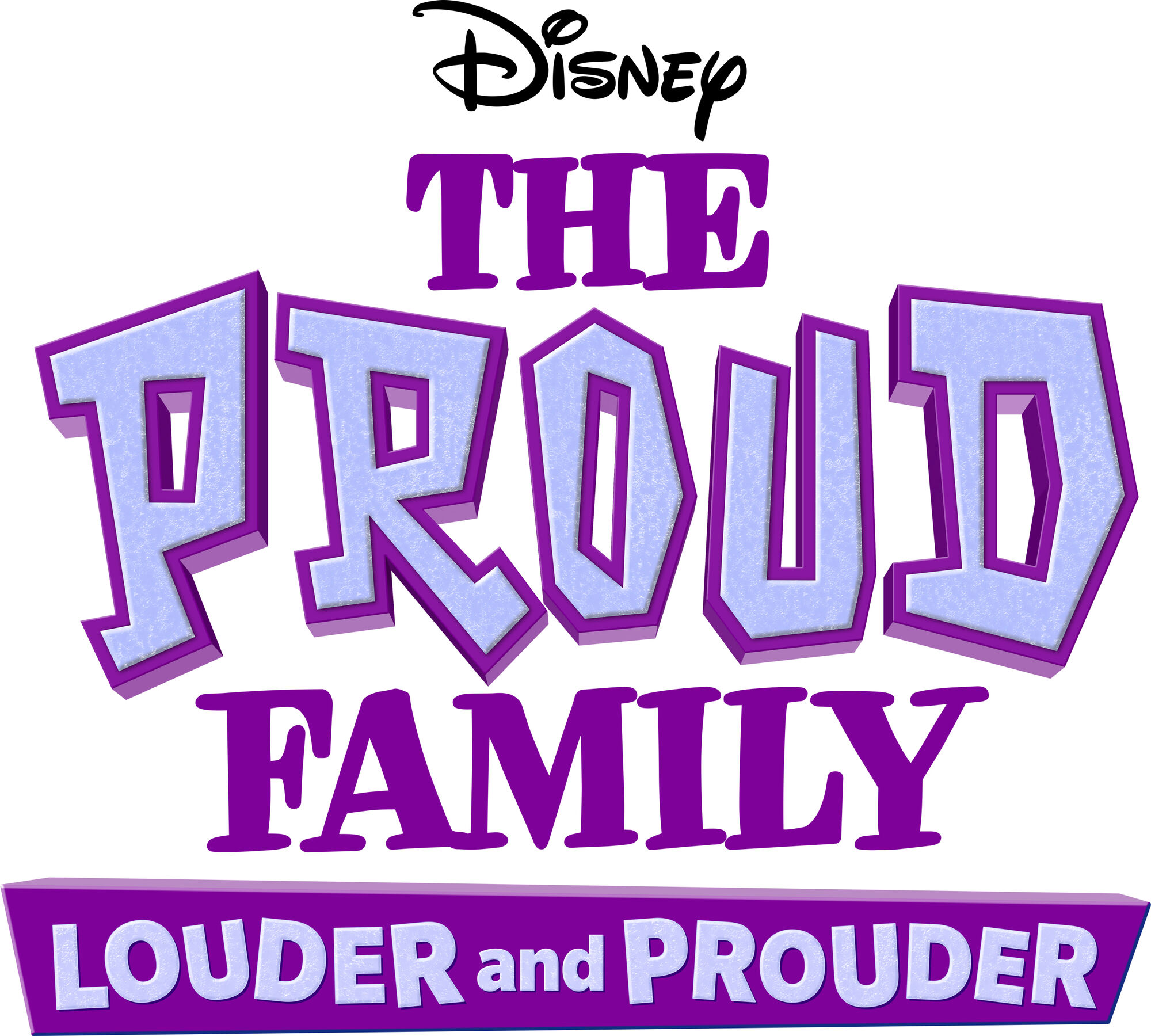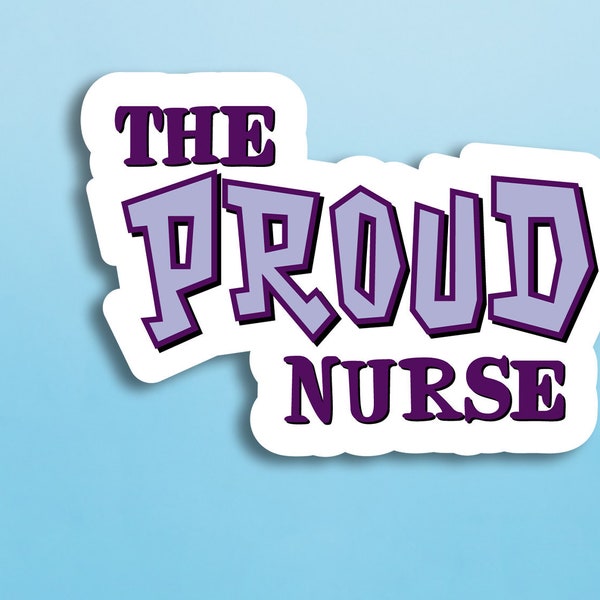
Proud Family Font
Proud Family Font - In logo design, the proud family font can transform a simple logo into a statement piece. Its boldness and distinctiveness help brands. The time is now 04:19. “the” and “family” are close to filmotype pixie.
Its boldness and distinctiveness help brands. The time is now 04:19. In logo design, the proud family font can transform a simple logo into a statement piece. “the” and “family” are close to filmotype pixie.
Its boldness and distinctiveness help brands. In logo design, the proud family font can transform a simple logo into a statement piece. “the” and “family” are close to filmotype pixie. The time is now 04:19.
The time is now 04:19. In logo design, the proud family font can transform a simple logo into a statement piece. “the” and “family” are close to filmotype pixie. Its boldness and distinctiveness help brands.
The time is now 04:19. Its boldness and distinctiveness help brands. In logo design, the proud family font can transform a simple logo into a statement piece. “the” and “family” are close to filmotype pixie.
In logo design, the proud family font can transform a simple logo into a statement piece. The time is now 04:19. “the” and “family” are close to filmotype pixie. Its boldness and distinctiveness help brands.
“the” and “family” are close to filmotype pixie. The time is now 04:19. Its boldness and distinctiveness help brands. In logo design, the proud family font can transform a simple logo into a statement piece.
The time is now 04:19. In logo design, the proud family font can transform a simple logo into a statement piece. Its boldness and distinctiveness help brands. “the” and “family” are close to filmotype pixie.
Its boldness and distinctiveness help brands. “the” and “family” are close to filmotype pixie. The time is now 04:19. In logo design, the proud family font can transform a simple logo into a statement piece.
Its boldness and distinctiveness help brands. The time is now 04:19. In logo design, the proud family font can transform a simple logo into a statement piece. “the” and “family” are close to filmotype pixie.
The time is now 04:19. “the” and “family” are close to filmotype pixie. Its boldness and distinctiveness help brands. In logo design, the proud family font can transform a simple logo into a statement piece.
The time is now 04:19. In logo design, the proud family font can transform a simple logo into a statement piece. “the” and “family” are close to filmotype pixie. Its boldness and distinctiveness help brands.
In Logo Design, The Proud Family Font Can Transform A Simple Logo Into A Statement Piece.
Its boldness and distinctiveness help brands. “the” and “family” are close to filmotype pixie. The time is now 04:19.